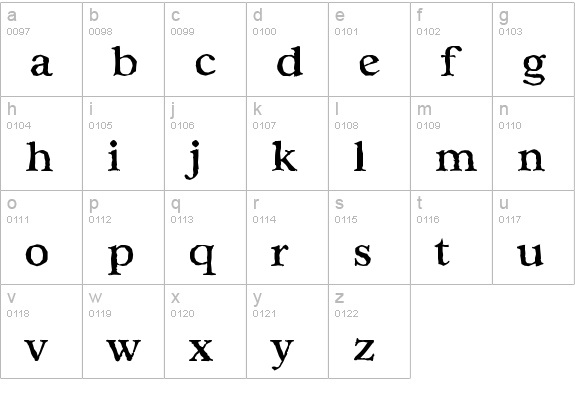
CasablancaAntique-Medium-Regular is a balanced, medium-weight variant in the CasablancaAntique typeface family \xE2\x80\x94 well suited to sub-headlines, navigation, and balanced editorial work.
CasablancaAntique-Medium-Regular font exudes a timeless charm and sophistication, making it a perfect choice for elegant and classic designs. With its intricate details and graceful curves, this font adds a touch of vintage elegance to any project. The medium weight strikes the perfect balance between boldness and delicacy, making it versatile for various design applications. Best of all, CasablancaAntique-Medium-Regular font is available for free download at FontsMarket.com. Embrace the beauty and nostalgia of this font in your designs without any cost. Whether you're working on invitations, branding materials, or editorial layouts, this font will effortlessly elevate your projects with its unique character and style. Download CasablancaAntique-Medium-Regular font today and let its timeless appeal enhance your creative endeavors.